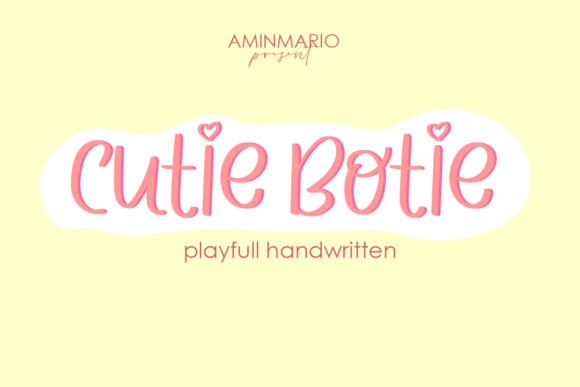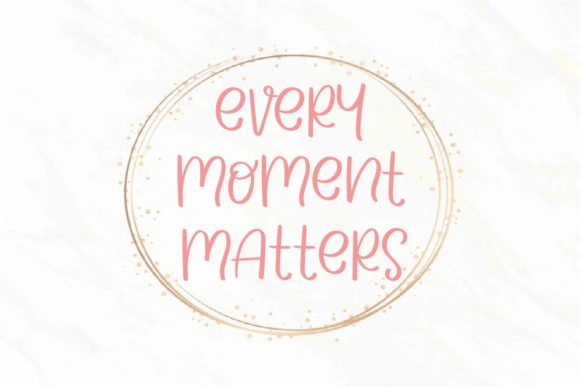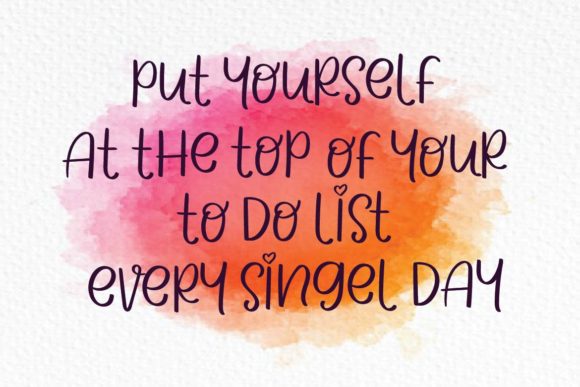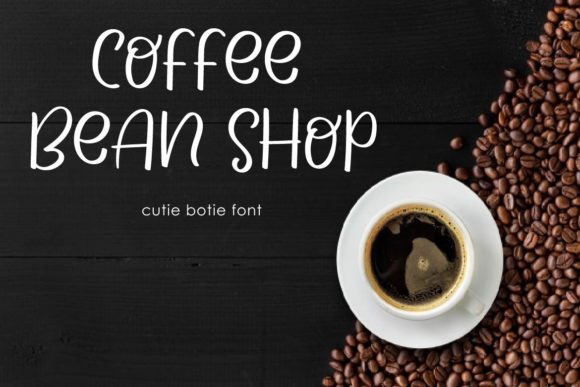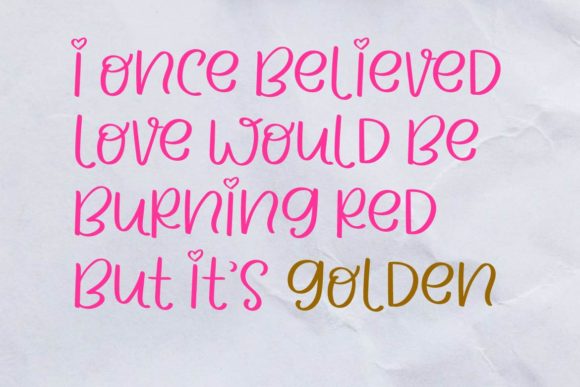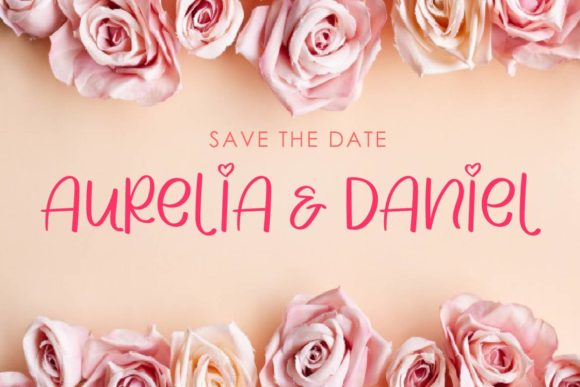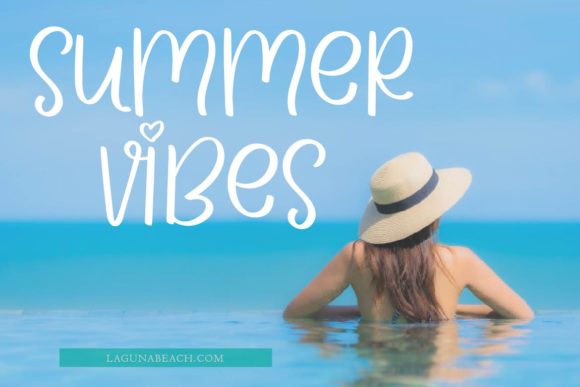
When Words Become Art
Have you ever been browsing through a beautiful wedding invitation or a quirky social media post, and you couldn’t help but feel a rush of inspiration? That’s exactly what happened to us when we stumbled upon the Cutie Botie Font – a joyous and quirky handwritten font that screams creativity and playfulness. Its incredibly versatile style makes it the perfect companion for any design project, from gorgeous wedding invitations to beautiful stationary art.
Whether you’re a seasoned designer or a creative enthusiast, the Cutie Botie Font is a valuable addition to your toolkit. Its unique charm and effortless elegance make it an ideal choice for designers looking to add a personal touch to their work. With the Cutie Botie Font, you can bring your ideas to life in a way that’s both fun and professional.
Cutie Botie Font Key Features
- Unique Characteristic: The font features a playful, cursive design with a mix of rounded and pointed letterforms, making it suitable for children’s books, greeting cards, and other creative projects.
Cutie Botie Font Review
Overall, I think the Cutie Botie Font has a lot going for it, but it also has some notable limitations. Let’s start with the good stuff.
- ✨ Unique aesthetic: Cutie Botie Font has a playful, childlike quality that sets it apart from other fonts. It’s perfect for designs that need a lighthearted touch.
- ✨ Versatile: This font can be used for a wide range of applications, from kids’ books to food labels. Its flexibility is one of its strongest suits.
- ✨ Easy to read: Despite its playful nature, Cutie Botie Font is surprisingly easy to read, even at small sizes.
Now, let’s talk about the limitations.
- ⚠️ Limited legibility at large sizes: While Cutie Botie Font is easy to read at small sizes, it can become overwhelming when used at larger sizes.
- ⚠️ Limited font family: Cutie Botie Font only comes in a few weights and styles, which can limit its versatility in certain applications.
- ⚠️ May not be suitable for formal designs: Due to its playful nature, Cutie Botie Font may not be the best choice for formal or professional designs.
Overall, I think the Cutie Botie Font is a solid choice for designers who need a fun, lighthearted font. While it has its limitations, it’s a great option for a wide range of applications.
The Cutie Botie Font is perfect for creating playful and whimsical designs, such as: